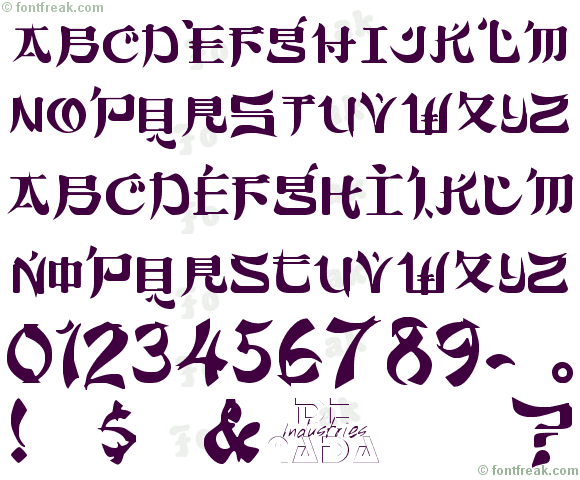
Sumdumgoi Regular
About Sumdumgoi
Sumdumgoi, designed by Mike Allard in 1992, is a distinctive display font that captures attention with its unique stylistic flair. This shareware typeface stands out in the decorative category, showcasing an eclectic mix of playful and bold features. The strokes are characterized by varying weights, giving a dynamic quality that adds personality to any design project. With a moderate amount of contrast and spacing, Sumdumgoi ensures readability while retaining its artistic charm, making it suitable for a range of creative applications.
This font is particularly well-suited for eye-catching wedding invitations, where its unique character can set the tone for a memorable event. It's also ideal for movie posters, where dramatic typography plays a crucial role in capturing the audience's interest. Restaurant menus benefit from the font's striking appearance, as it adds an element of fun to the dining experience. Additionally, graphic designers can utilize Sumdumgoi for branding projects that require a distinctive voice, appealing to small business owners looking to make their mark in a competitive market.
What truly sets the Sumdumgoi font apart is its ability to blend artistry with functionality. Its unique design elements provide a memorable aesthetic that is perfect for making bold statements in any context. For those interested in enhancing their design arsenal, the Sumdumgoi font free download offers an opportunity to explore its many possibilities and elevate their creative endeavors.